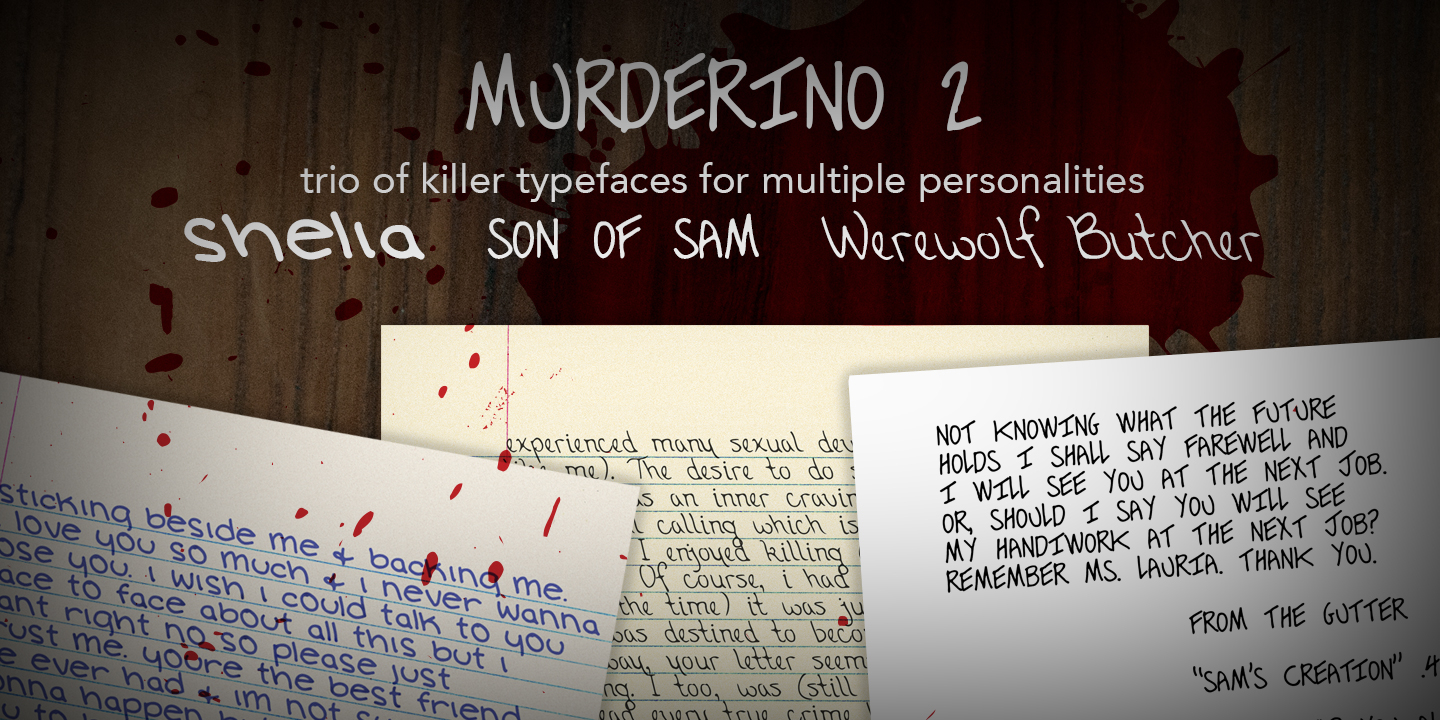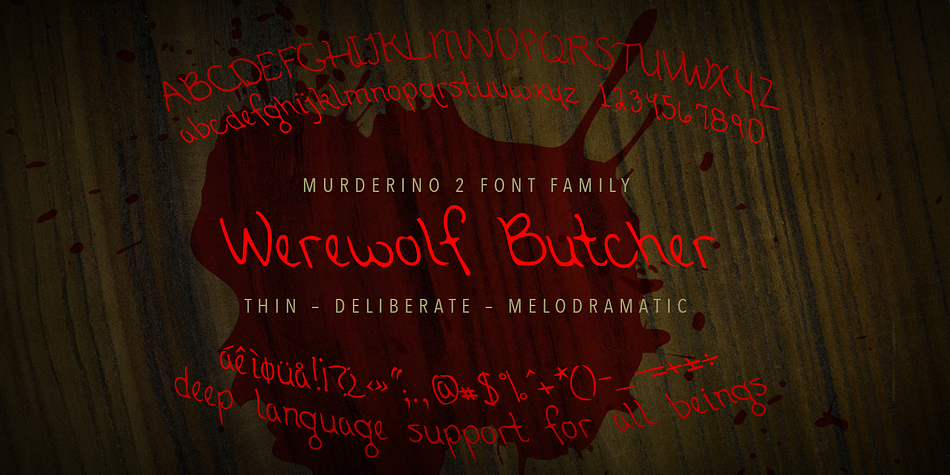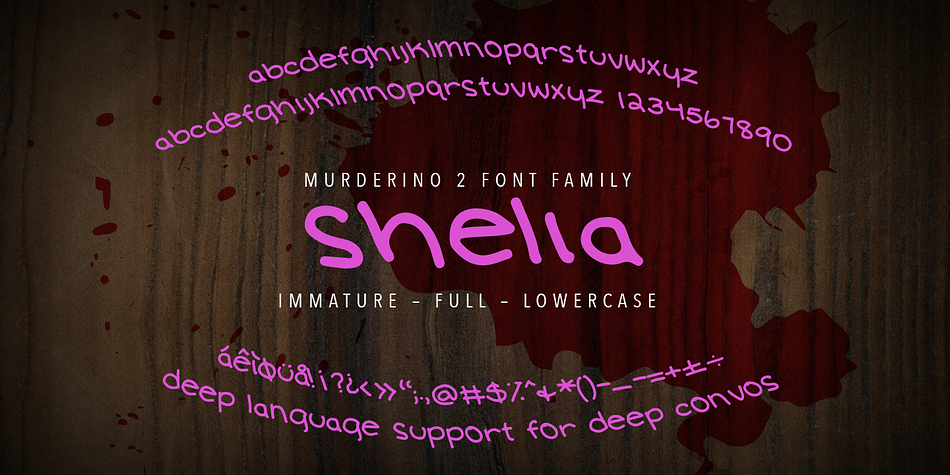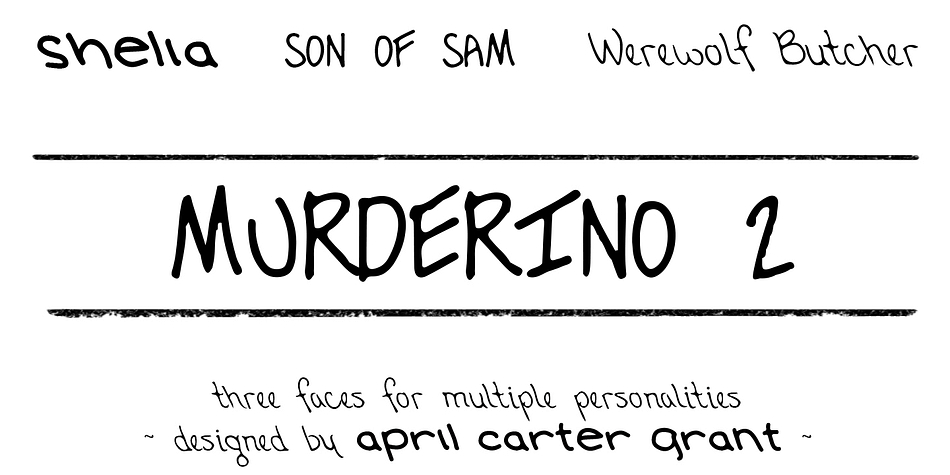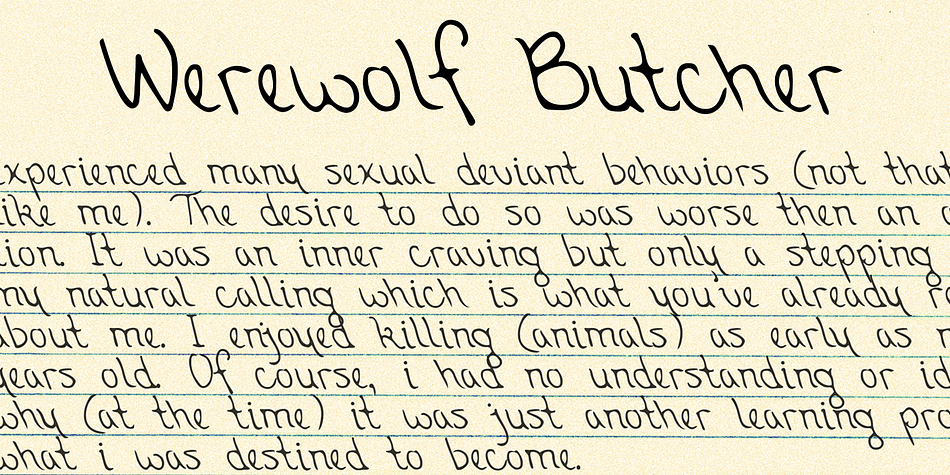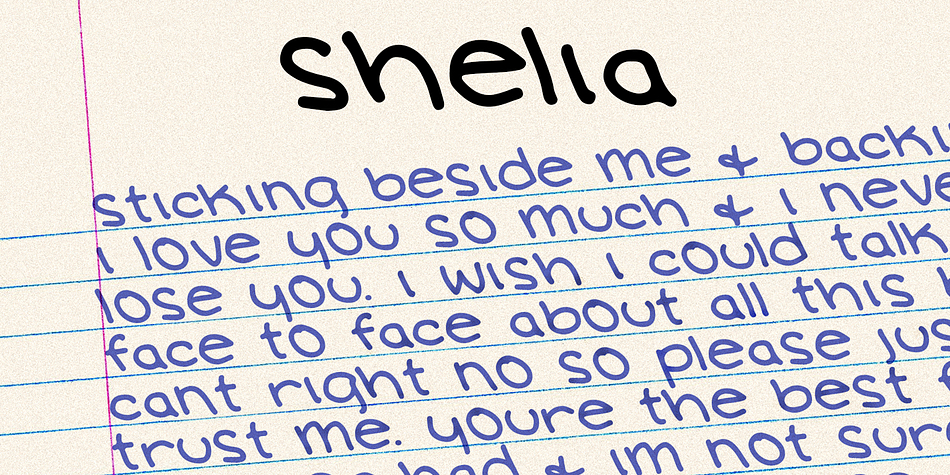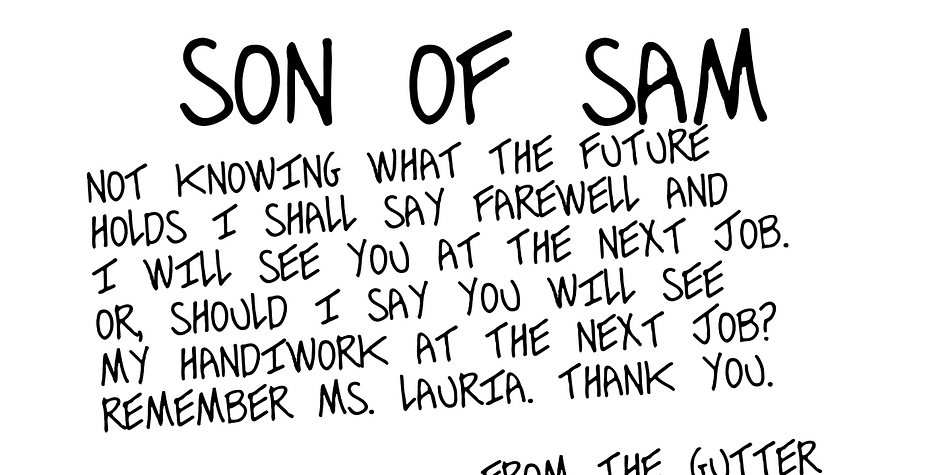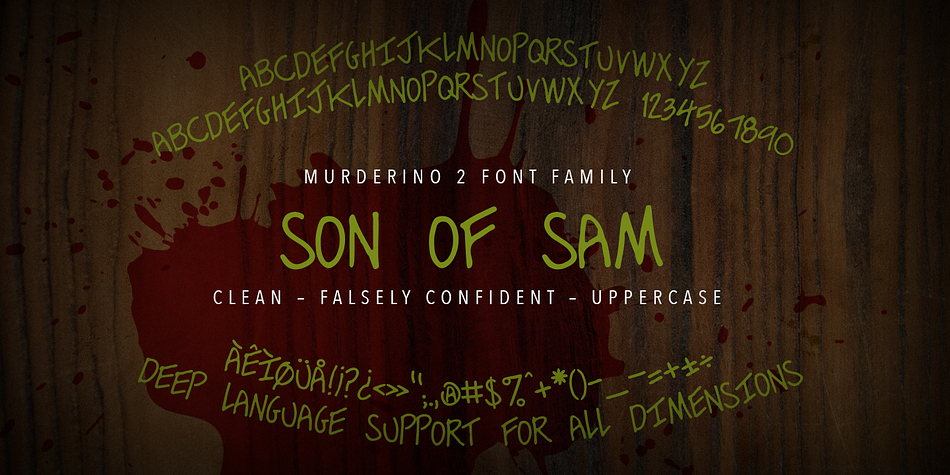
Murderino 2
Designed by April Carter Grant, Murderino 2 is a hand drawn font family. This typeface has three styles and was published by La Lettre de Luxe.
The Murderino 2 family is inspired by some of our time’s most infamous murders and the My Favorite Murder podcast community. After reviewing case materials and prison correspondence from dozens of high-profile cases, this second collection of Murderino typefaces was designed to recreate the feeling of writings from teen killer Shelia Eddy, “Son of Sam” David Berkowitz, and Jack “Werewolf Butcher” Spillman. Half of proceeds from Murderino 2 benefits the Legal Aid Foundation of Los Angeles.